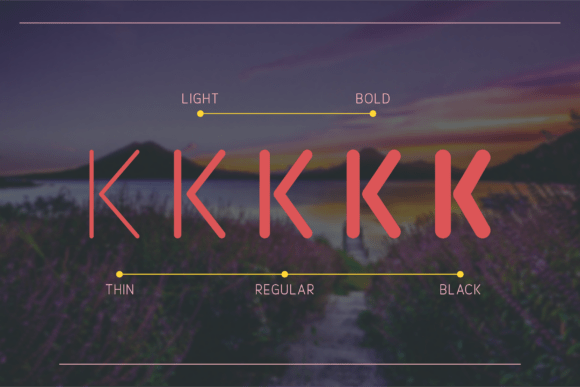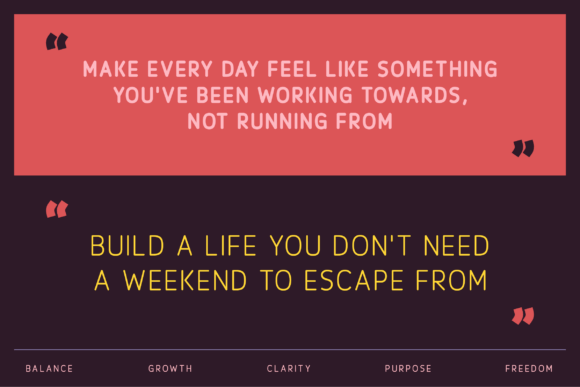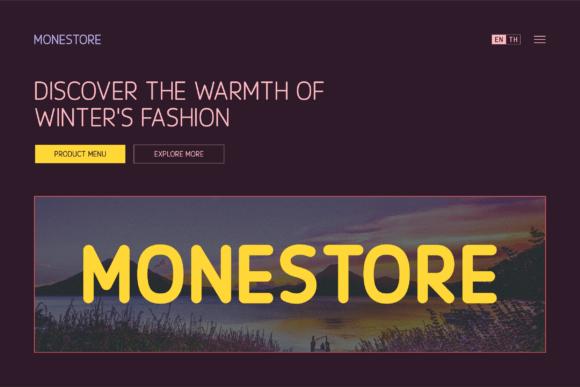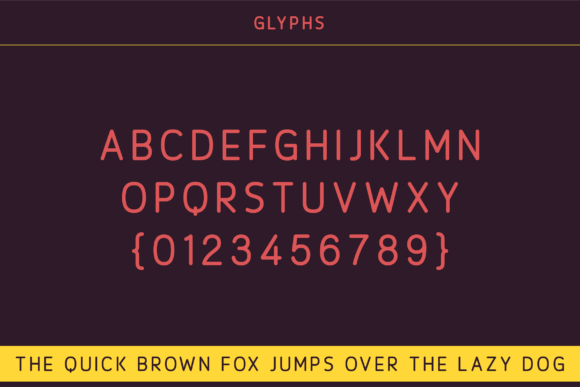
Introduction to Kontrustive Rounded Font
Kontrustive Rounded is a modern all-caps sans serif font family designed to bring clarity, warmth, and bold personality to your creative projects.
With its soft-rounded edges and sleek, geometric construction, this font is both highly legible and aesthetically balanced across five versatile weights: Thin, Light, Regular, Bold, and Black This font family was created to help designers, crafters, and brand creators achieve a clean yet friendly visual identity.